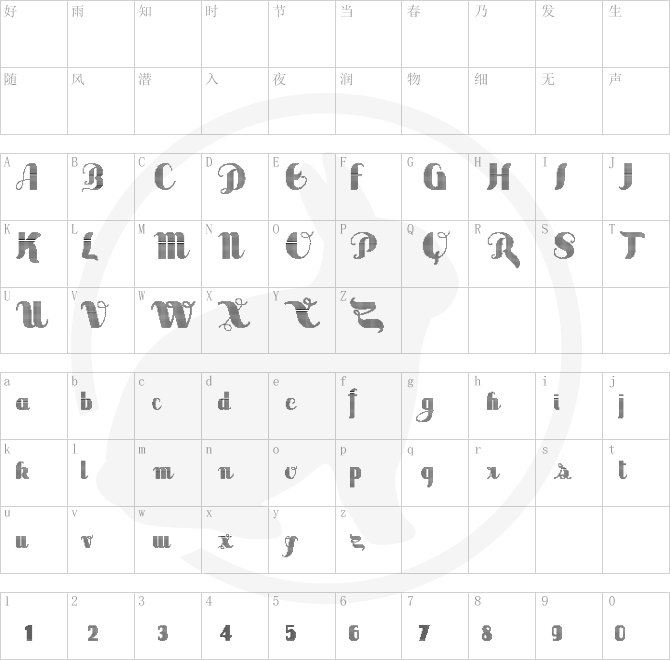
- Font Name:Sabor Digital
Sabor-Digital.ttf is a very beautiful artistic font, Sabor-Digital.ttf is widely used in the design and printing of various books and pictures,Sabor-Digital.ttf has a strong visual impact,Sabor-Digital.ttf is a commonly used font in newspapers, magazines and books, and is used in posters, e-commerce Poster design, store design, logo design, font design and other fields.Sabor-Digital.